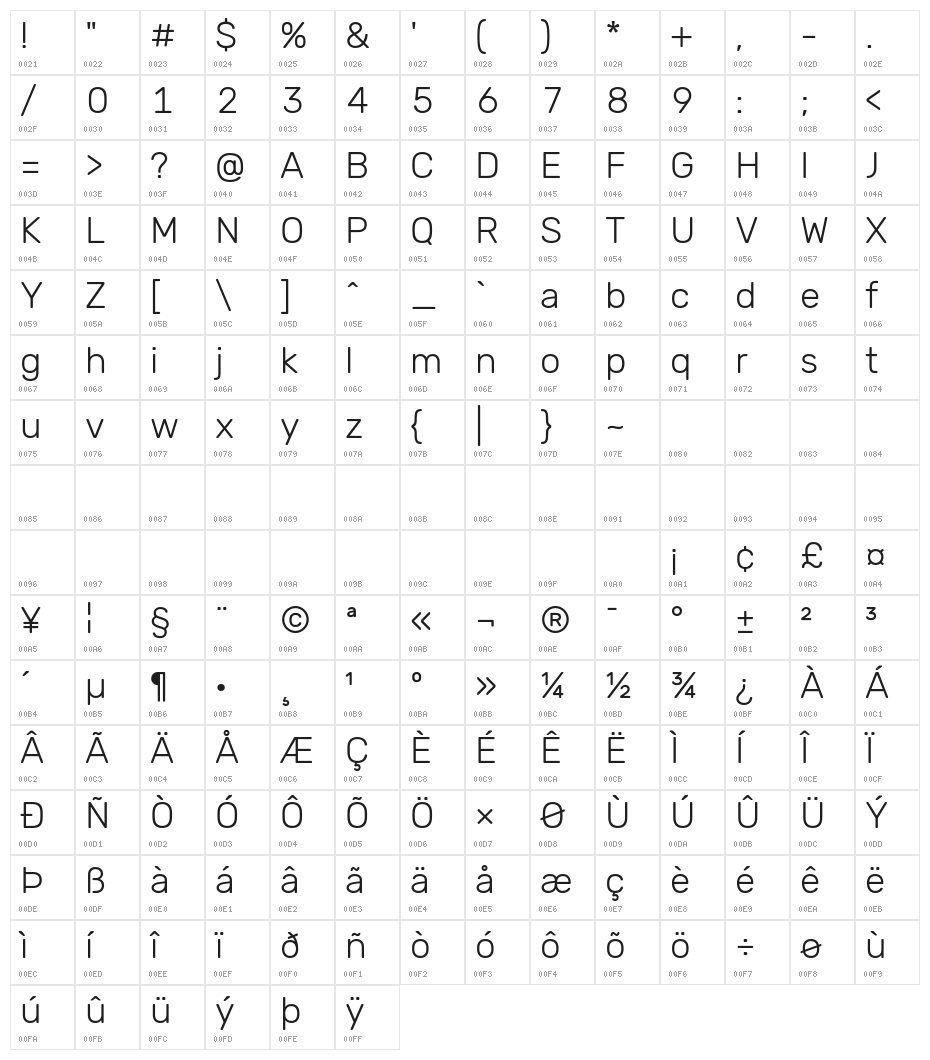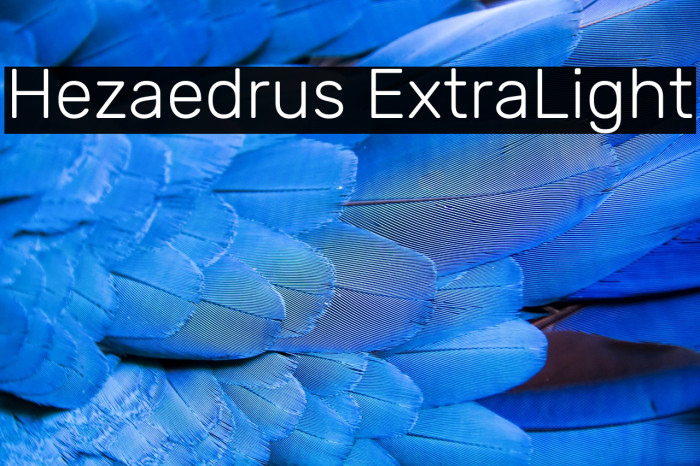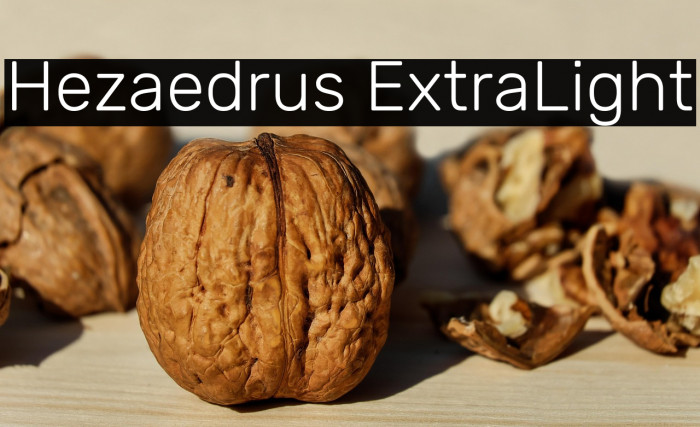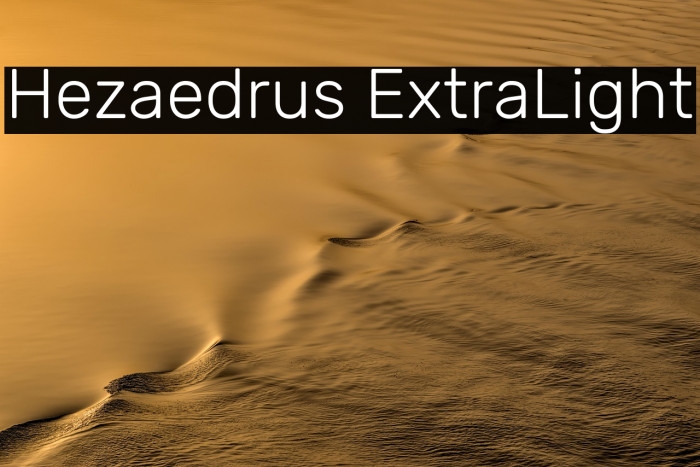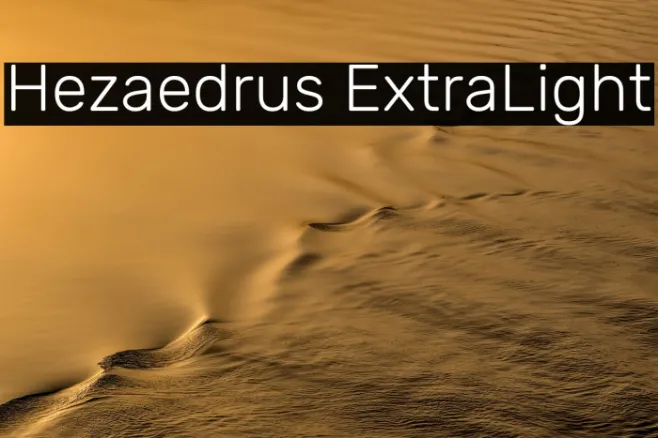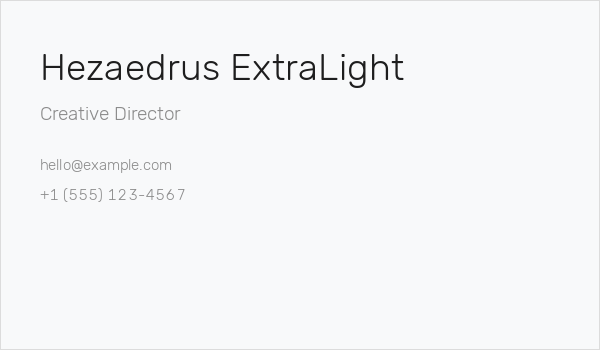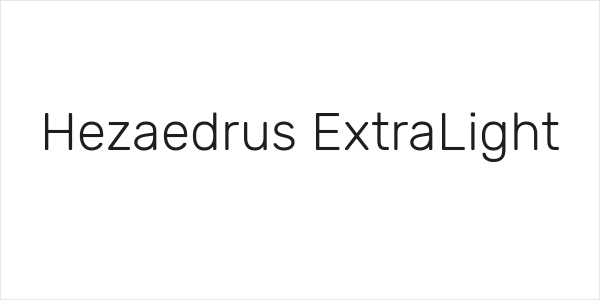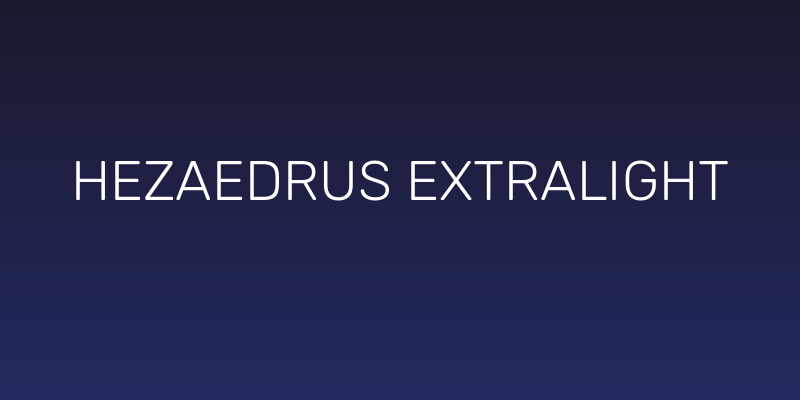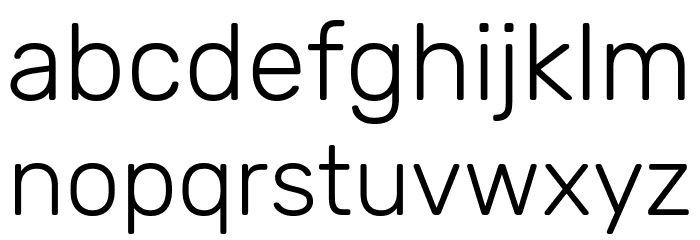
Hezaedrus ExtraLight Font
Hezaedrus ExtraLight Description
This font features a clean and modern sans-serif design with a focus on simplicity and readability. The characters are evenly spaced with a consistent stroke width, giving it a uniform appearance. The uppercase and lowercase letters are well-proportioned, and the numerals are clear and distinct. Special characters are designed to complement the overall style, maintaining the font's minimalist aesthetic. The font's extra-light weight adds an airy and elegant touch, making it suitable for projects that require a subtle yet sophisticated look.
| Proposed Projects | Ideal for branding, web design, and editorial projects where a modern and clean aesthetic is desired. |